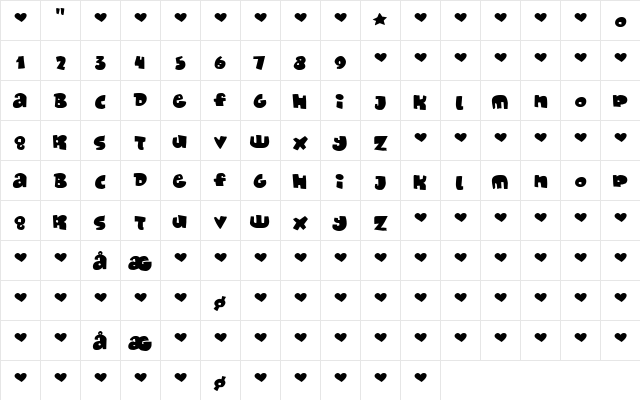
Monafont Regular Font Preview
Monafont Regular
Monafont Regular Font Details
Design Context for Monafont Typeface
Monafont is a composed and adaptable typeface that performs quietly and consistently across a wide range of design contexts.